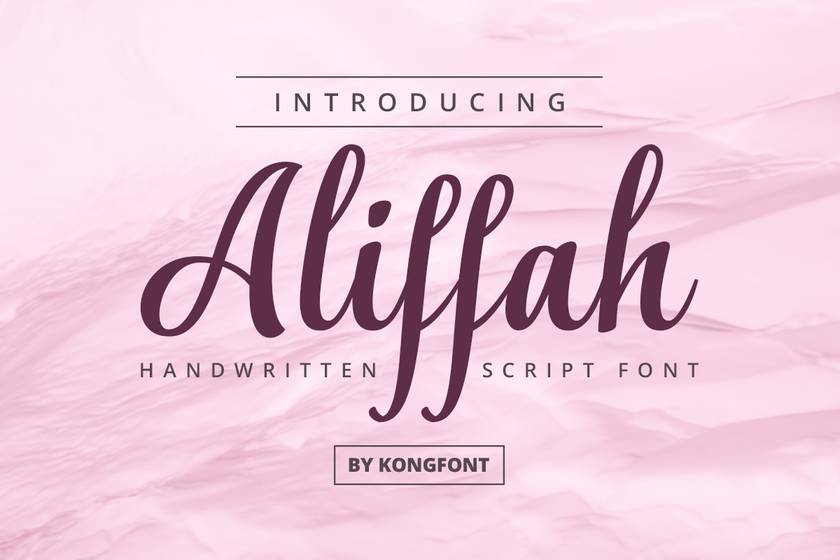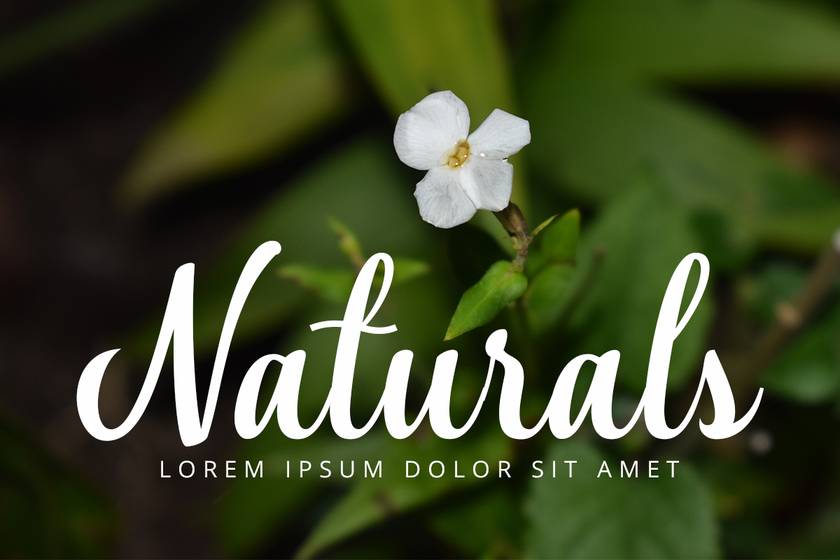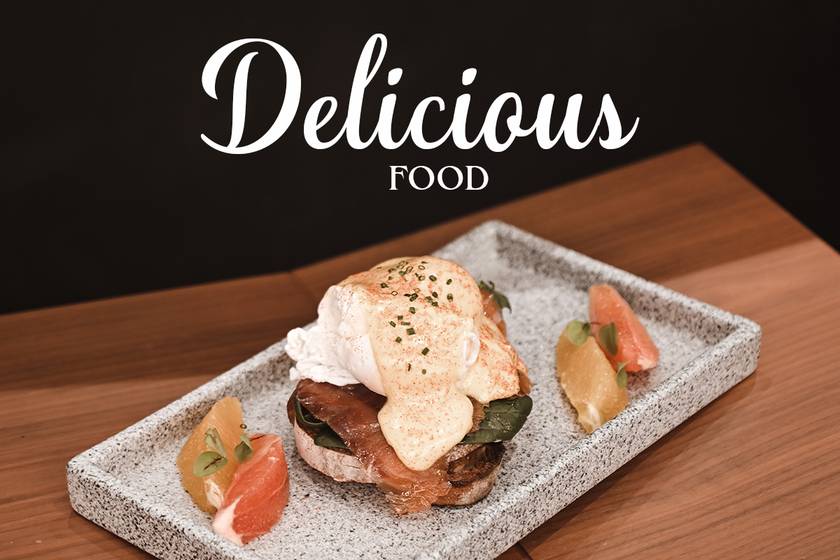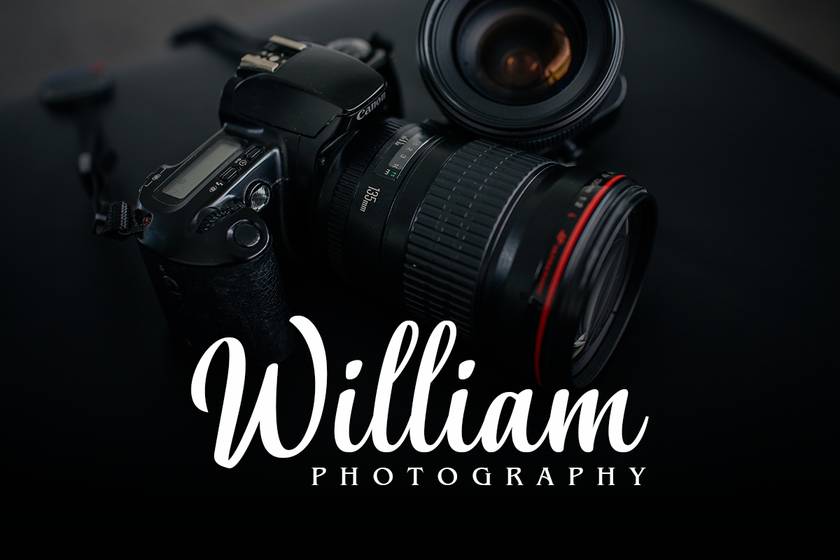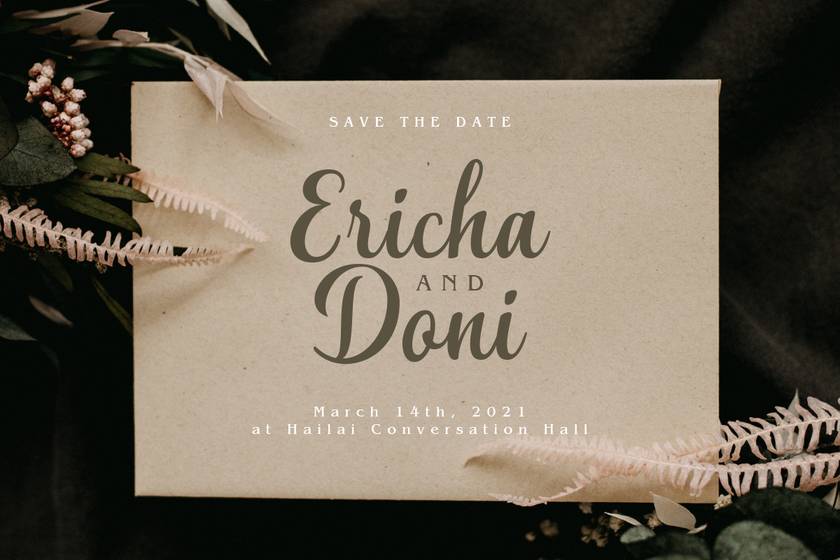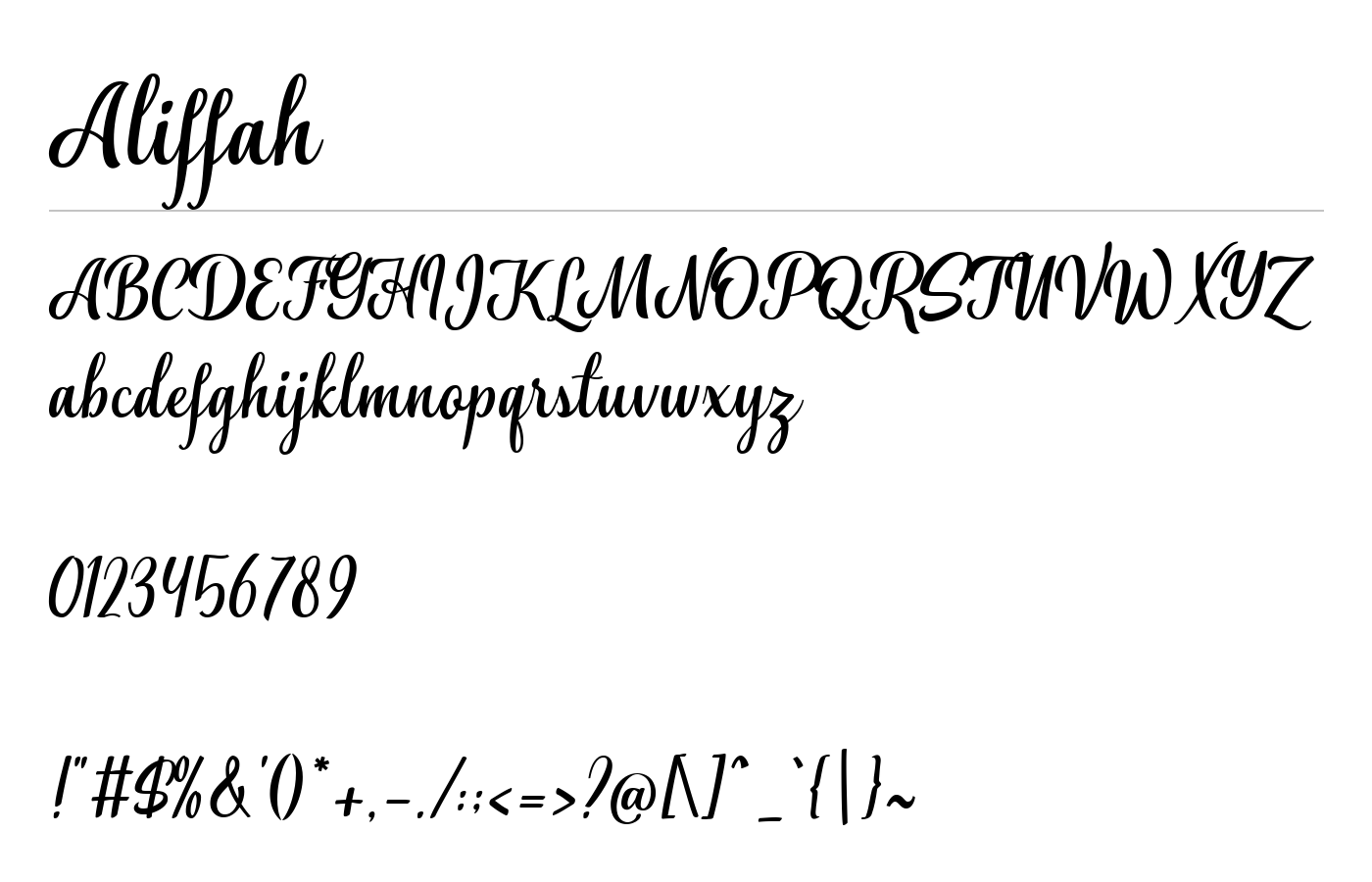
Aliffah is an elegant script font featuring slender, flowing letterforms with a graceful, hand-lettered style. Its high contrast strokes and smooth curves give it a refined, artistic personality, making it ideal for fashion, wedding invitations, branding, and editorial headlines where a sophisticated and stylish impression is desired. This font works well in designs that need a personal yet polished touch, combining classic beauty with modern flair.
Aliffah Font
About Aliffah Font
| Font family | Aliffah Font |